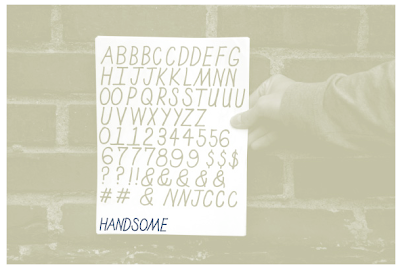
i really like this new release from you work for them.
"Handsome reflects the simpler things in life. A hand-drawn font created as an ode to clean handwriting, Minnesota summers, and markers that bleed through. It captures the aesthetic qualities of hand-drawn letting with while keeping the importance of legibility close at hand."